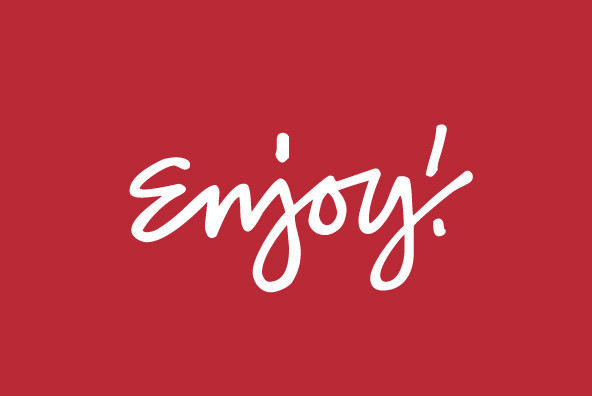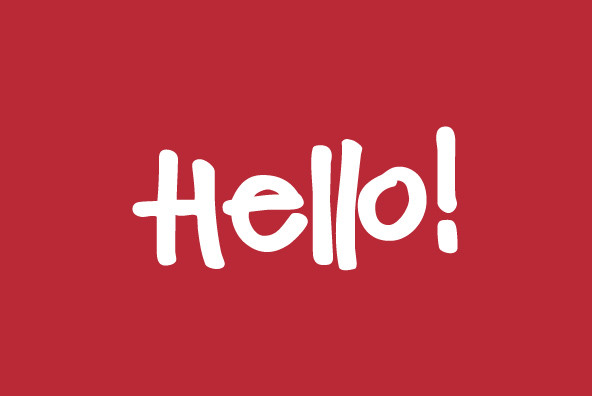
Ad Words
Foundry: Outside The Line
Just in time for the sale season. Ad Words is a font of words you would use if you do retail ads. Some words in script, some print, some bold, some not. Plus 2 starbursts. Enlarge the starbursts and then reverse one of the words out of it, like Now! Win! or Free! Other Outside the Line fonts work with this one, check out Architectural Lettering Regular and Bold, Plz Print or Plz Script.